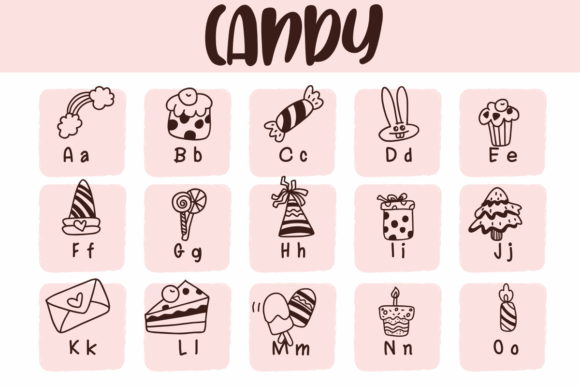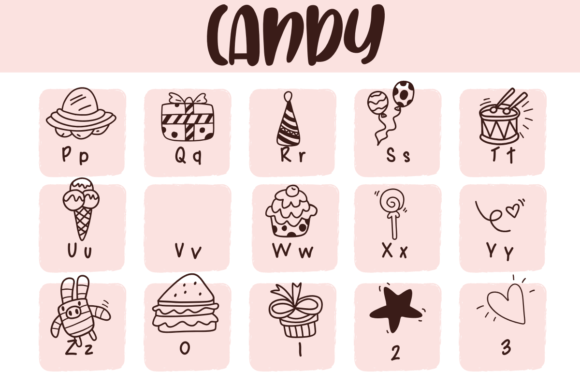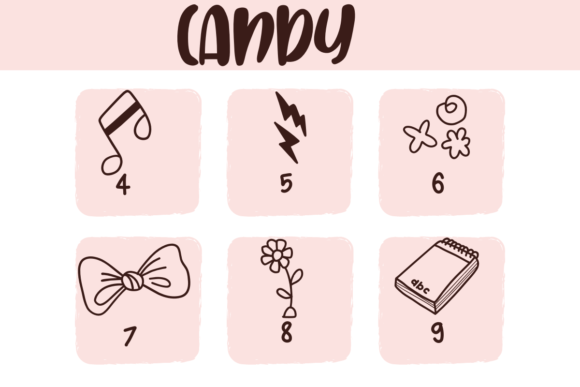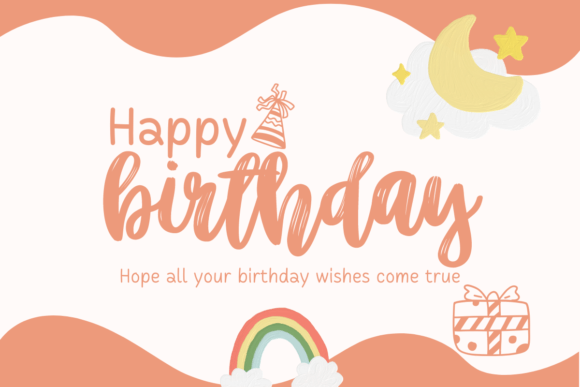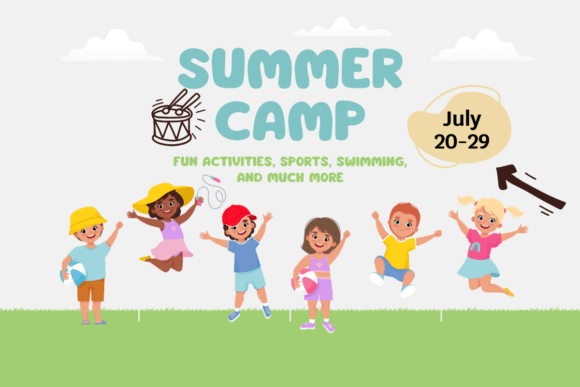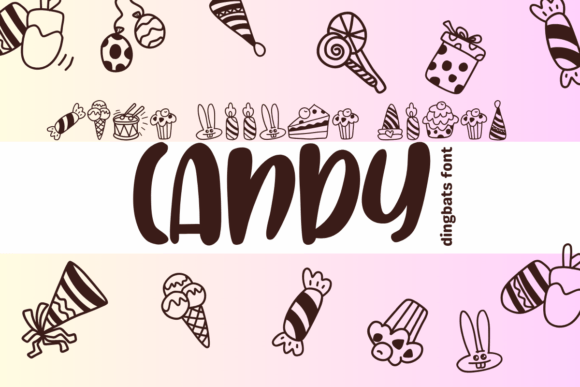
Candy Font: The Sweetest Addition to Your Creative Projects
Are you a designer, crafter, or DIY enthusiast looking for a unique and playful font to add a touch of whimsy to your projects? Look no further than Candy Font, a delightful dingbats font with a sketch-style theme that’s sure to satisfy your sweet tooth.
What is Candy Font?
Candy Font is a one-of-a-kind dingbats font that features a charming sketch-style design. The font is made up of adorable illustrations of candies, sweets, and other treats that are sure to bring a smile to your face. With its playful and carefree vibe, Candy Font is the perfect addition to any creative project that needs a dash of fun and personality.
Uses for Candy Font
Candy Font is incredibly versatile and can be used in a wide range of creative projects, including:
• Wedding invitations: Add a touch of sweetness to your wedding stationery with Candy Font’s adorable illustrations.
• DIY projects: Use Candy Font to add a personal touch to your DIY crafts, such as party decorations, gift tags, and more.
• Crafts: From scrapbooking to card making, Candy Font is the perfect addition to any craft project that needs a dash of whimsy.
• Logos: Use Candy Font to create a fun and playful logo for your business or brand.
• Decorations: Add a touch of sweetness to your party decorations, garlands, and other festive decor with Candy Font.
Why Choose Candy Font?
So why choose Candy Font over other fonts? Here are just a few reasons why this font stands out:
• Unique and playful design: Candy Font’s sketch-style illustrations are sure to add a touch of personality to your projects.
• Versatile: From wedding invitations to DIY crafts, Candy Font can be used in a wide range of creative projects.
• Easy to use: Candy Font is incredibly easy to use, even for those with limited design experience.
• Scalable: Candy Font can be scaled up or down without losing any of its charm, making it perfect for projects of all sizes.
Tips for Using Candy Font
Here are a few tips for getting the most out of Candy Font:
• Mix and match: Combine Candy Font with other fonts and illustrations to create a unique and eye-catching design.
• Experiment with colors: Candy Font looks great in a variety of colors, so don’t be afraid to experiment and find the perfect hue for your project.
• Use it sparingly: While Candy Font is adorable, it can be overwhelming if used too much. Use it sparingly to add a touch of whimsy to your project.
Candy Font is a sweet and playful dingbats font that’s sure to add a touch of personality to your creative projects. With its unique and versatile design, Candy Font is perfect for designers, crafters, and DIY enthusiasts of all levels. So why not give it a try and see how it can enhance your next project?
Whether you’re looking to create a whimsical wedding invitation, a fun and playful logo, or a sweet and charming DIY craft, Candy Font is the perfect choice. So go ahead, indulge in this delightful font, and add a touch of sweetness to your creative projects.